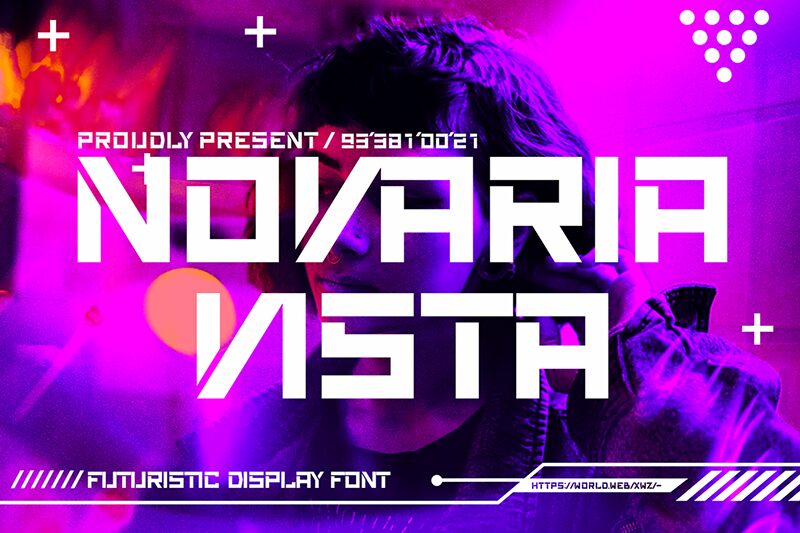
Novaria Vista
Novaria Vista font by Cikareotype Studio is a futuristic display font that blends minimalism with technical elegance. Its geometric shapes and straight lines form a modern design style, creating an aesthetic harmony that appeals to the eye. The slight curves presented within the characters give them a soft edge without much distortion.